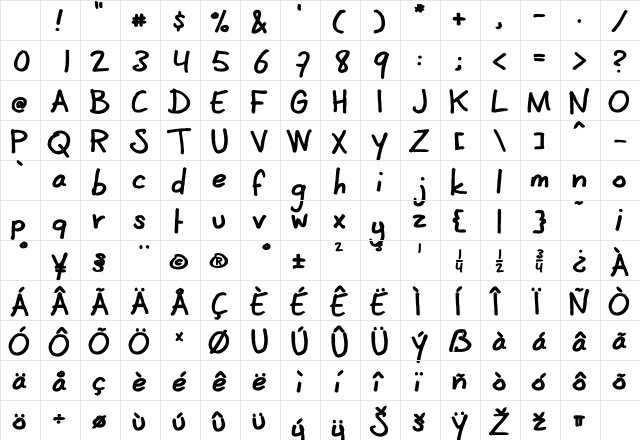
Complete CoertSchrift Dik glyph index. Displaying only characters natively supported by CoertSchrift Dik font.
CoertSchrift is a composed and adaptable typeface that performs quietly and consistently across a wide range of design contexts.